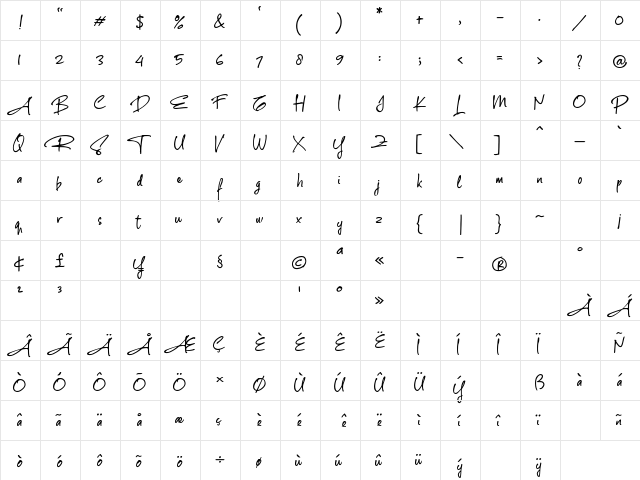
The Rambler Regular
Design Context for The Rambler Typeface
The Rambler is a composed and adaptable typeface that performs quietly and consistently across a wide range of design contexts.